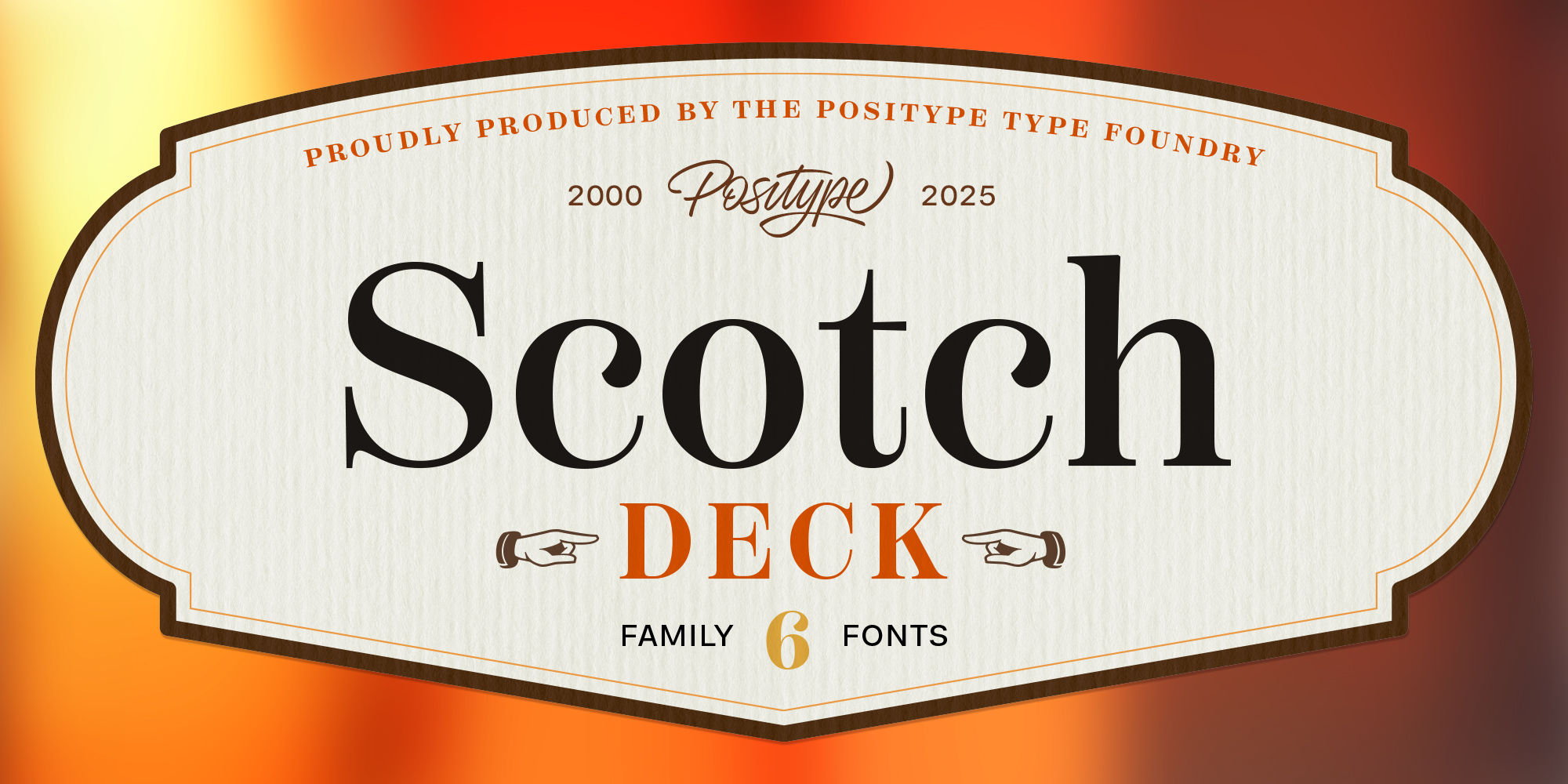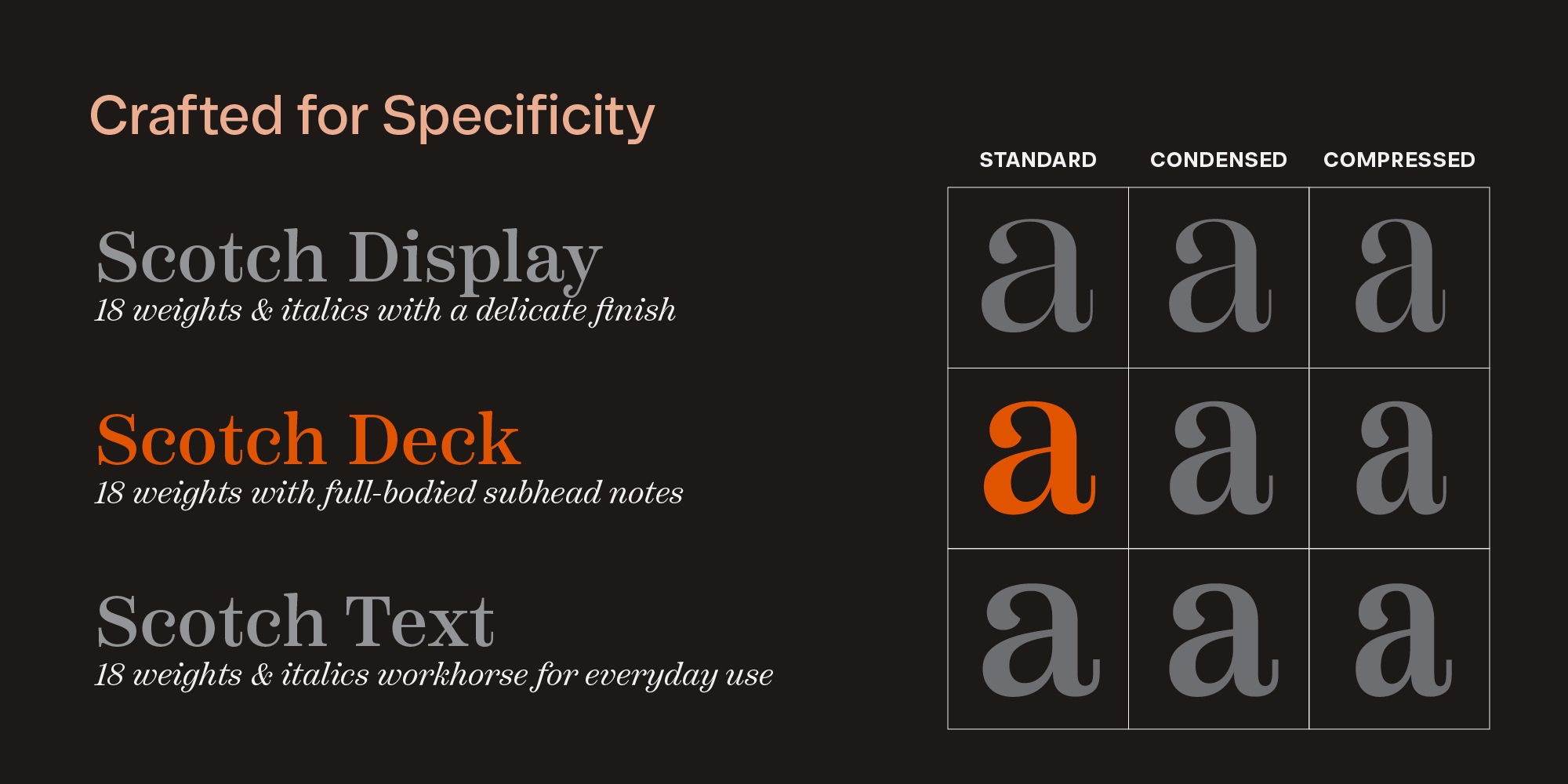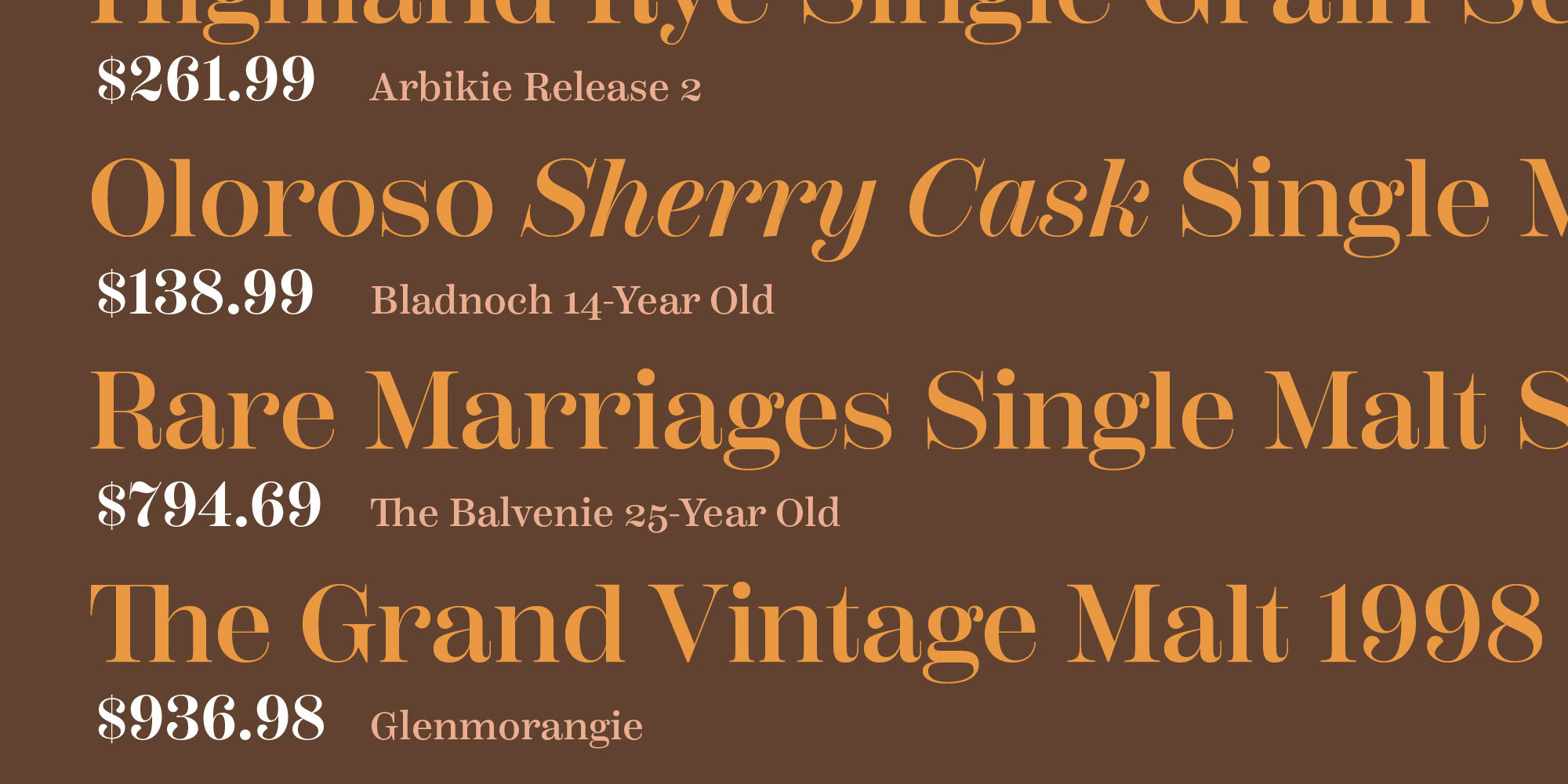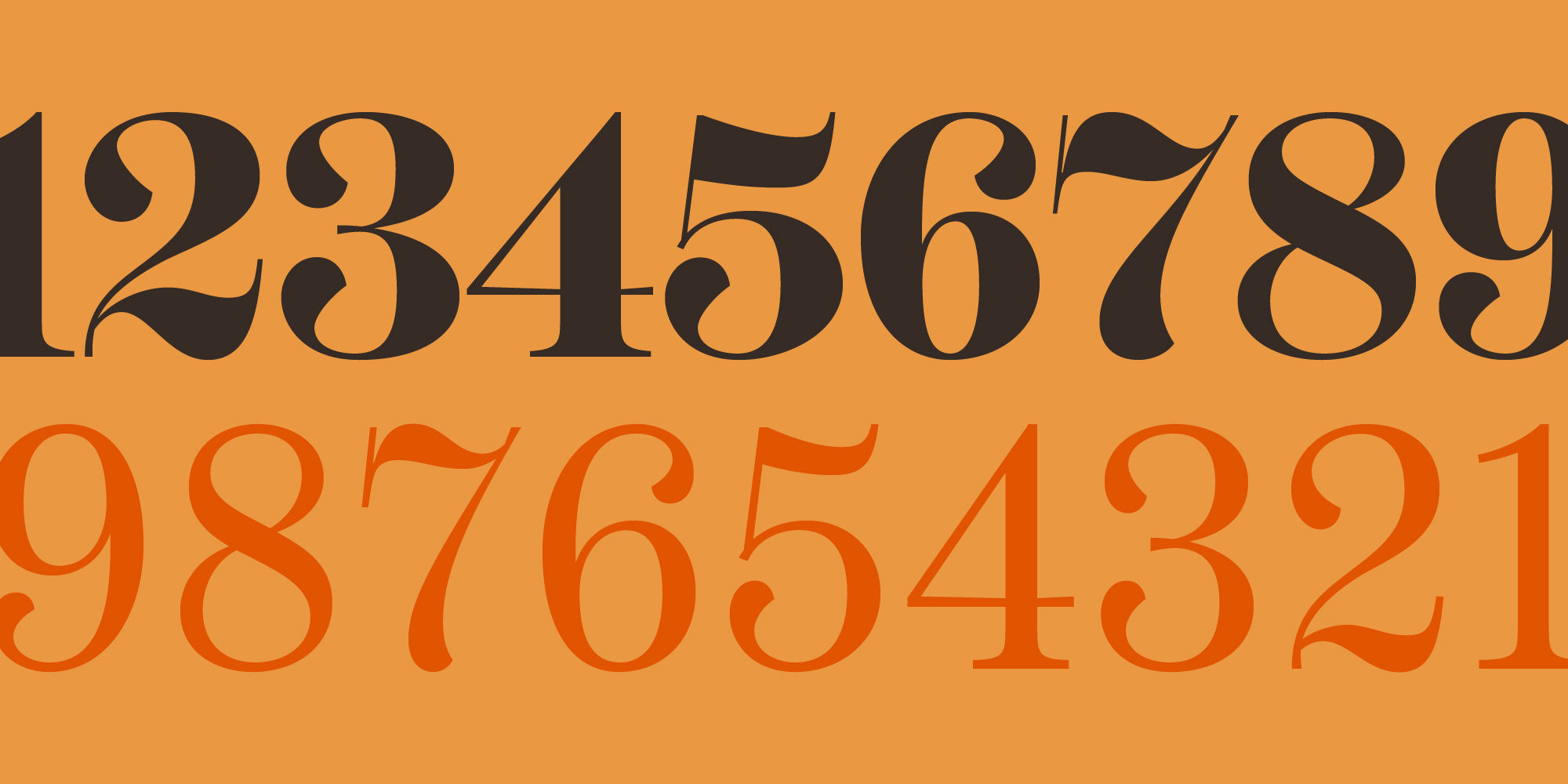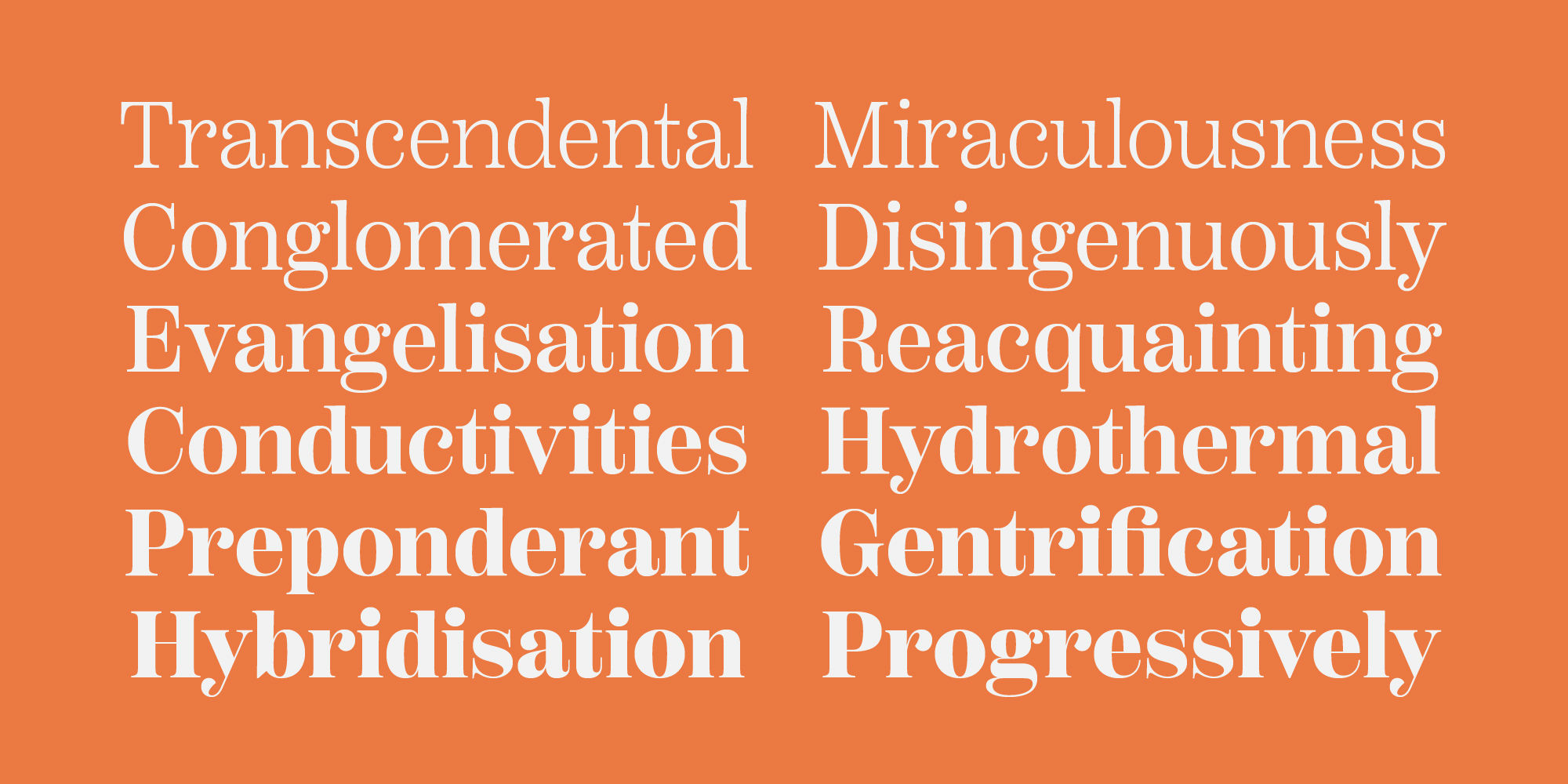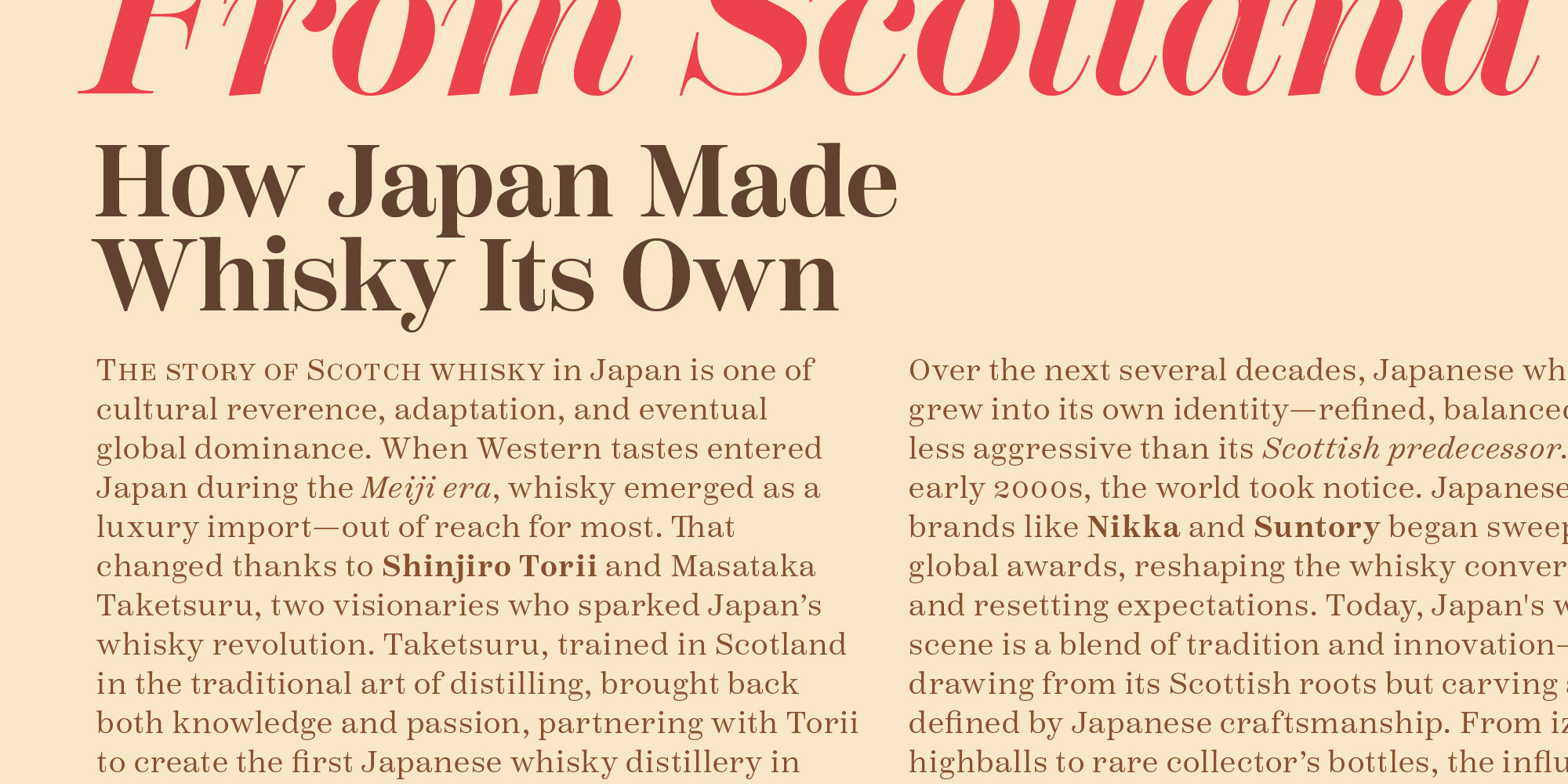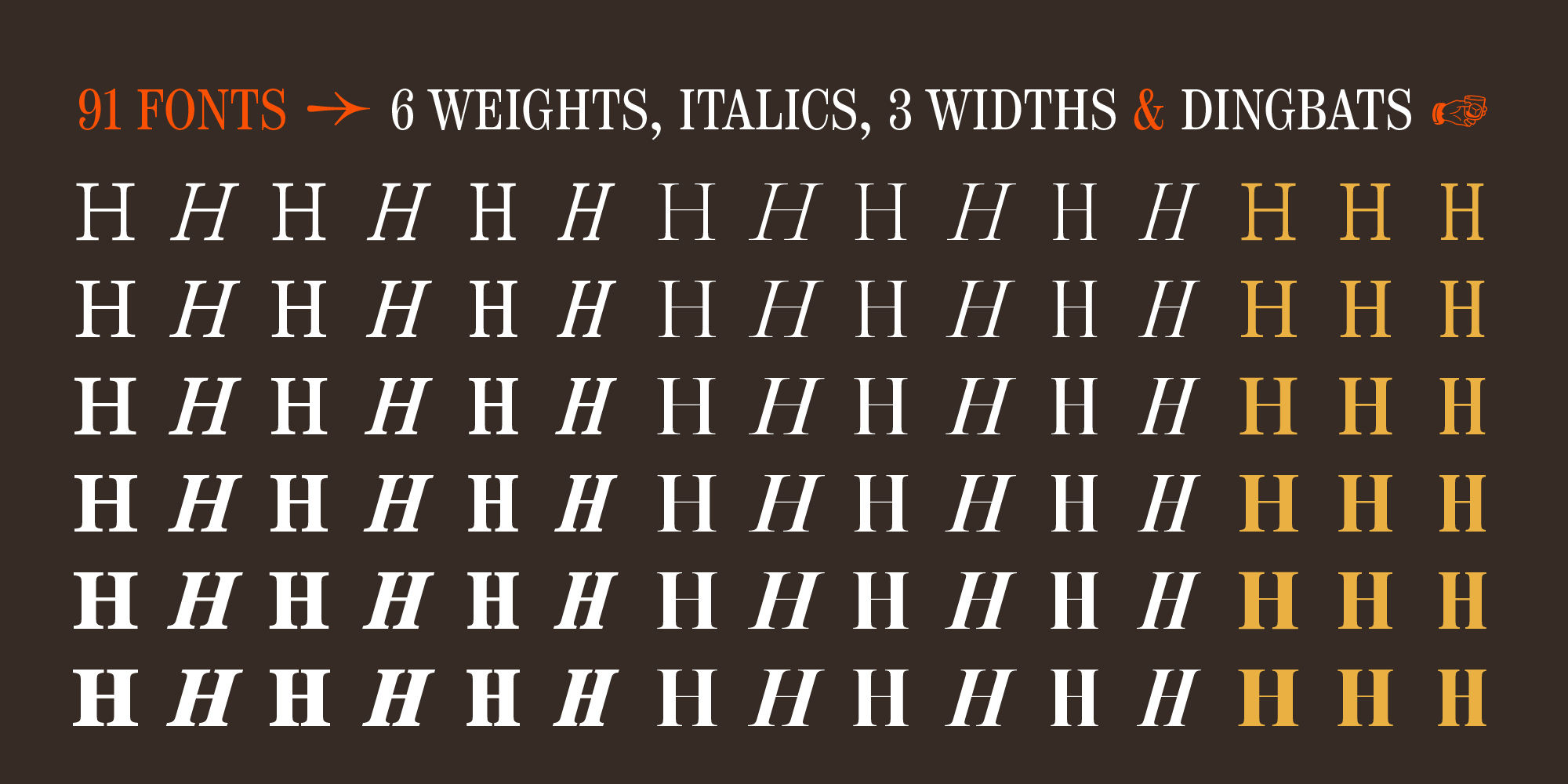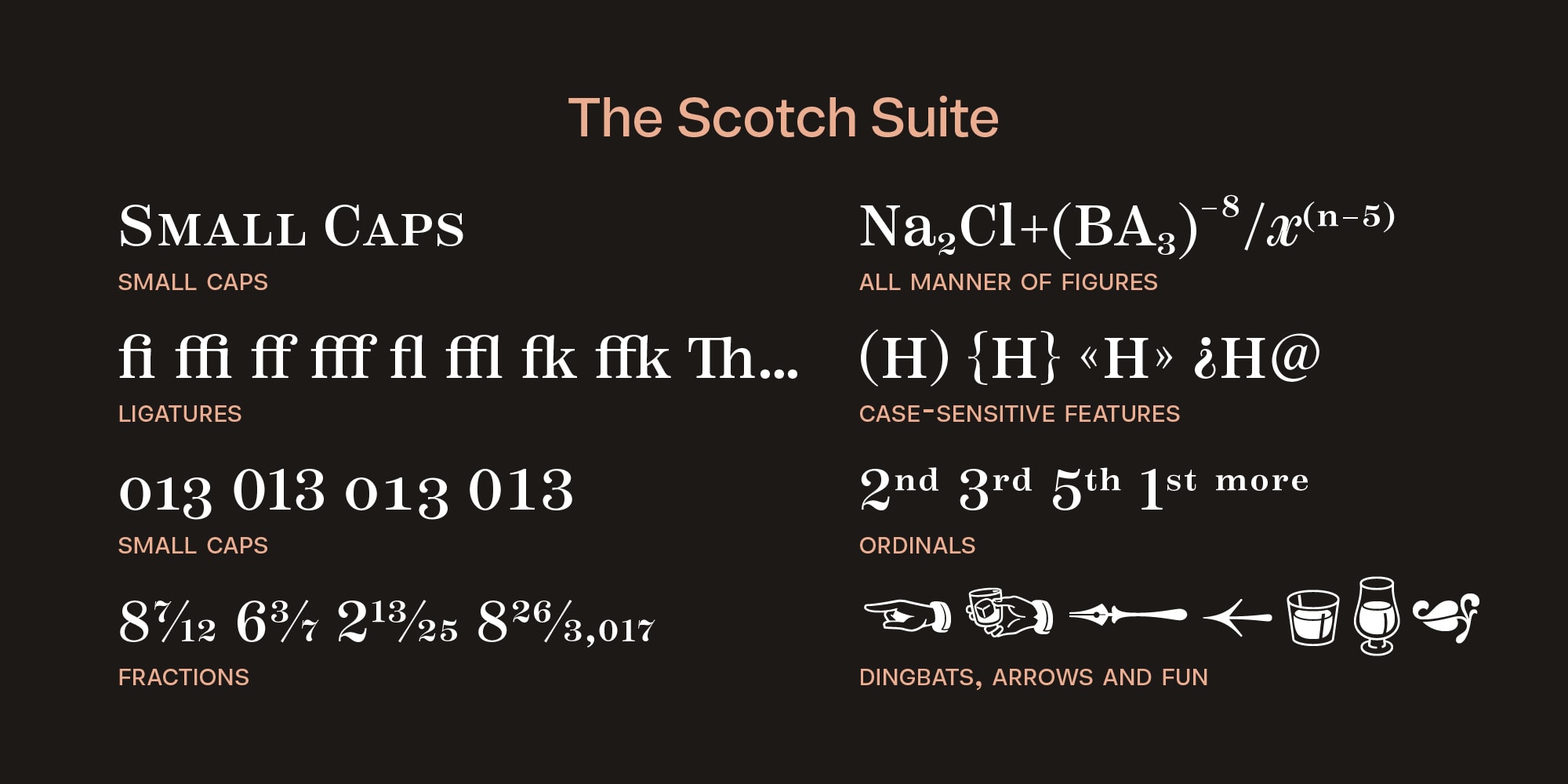
Scotch Deck
Th ffb ffi ffk
Standard Ligaturesliga
12/49 3/17 42/89
Fractionsfrac
x2+a35=n8
Superscriptsups
C2H5OH
Scientific Inferiorssinf
1st 2nd 3rd
Ordinalsordn
[H] @ H¿
Case-Sensitive Formscase
$1259
Stylistic Set 1ss01
Clean, crisp, rational, familiar, modern… serifed. Positype Scotch reaches back to history just enough to produce something warm and easy on the eyes. No corners were cut, no quick tricks… this type suite was drawn for specificity: Text, Display, and Deck… ALL in 3 widths that now include Condensed and Compressed. Each unique, each inter-connected, each part of the whole.
Scotch Text is offered in 6 weights with matching true italics. Drawn for economy and an easy read, the family is a workhorse for long-passage text settings. 4 sets of numerals, well-proportioned small caps, and a plethora of extras round out each font.
Scotch Display is not just a thinner version of Scotch Text wrapped in a higher contrast. Display sports shorter ascenders and descenders, a unique footprint, great contrast, and a more folded, calligraphic italics. Display subtly oozes sophistication and provides an attractive, exhuberant companion to Scotch Text.
Scotch Deck rounds out the offering by choosing to be specific to its offering. Deck utlitizes traits and proportions shared between Text and Display, but alters its overall mass to balance out the needs for settings that require subheadlines, callouts and other similar uses. Essentially, something not so high-contrast and not so stress dense that works great for middle-sizes.